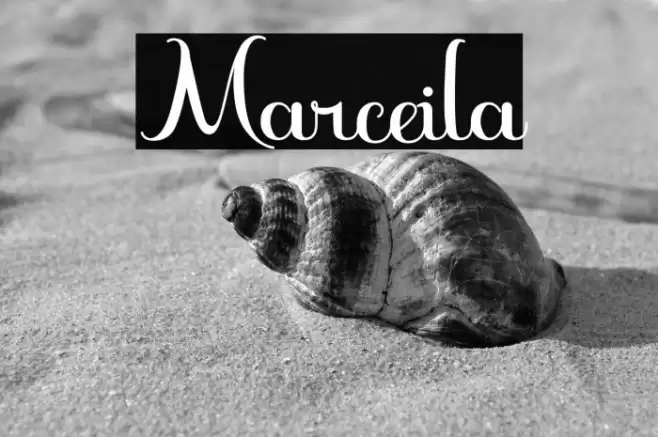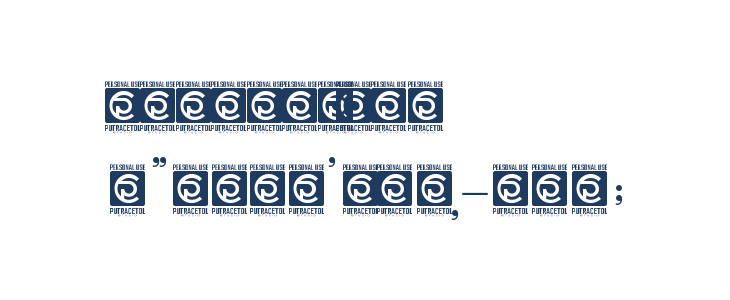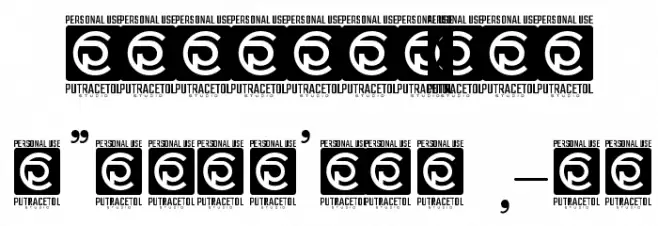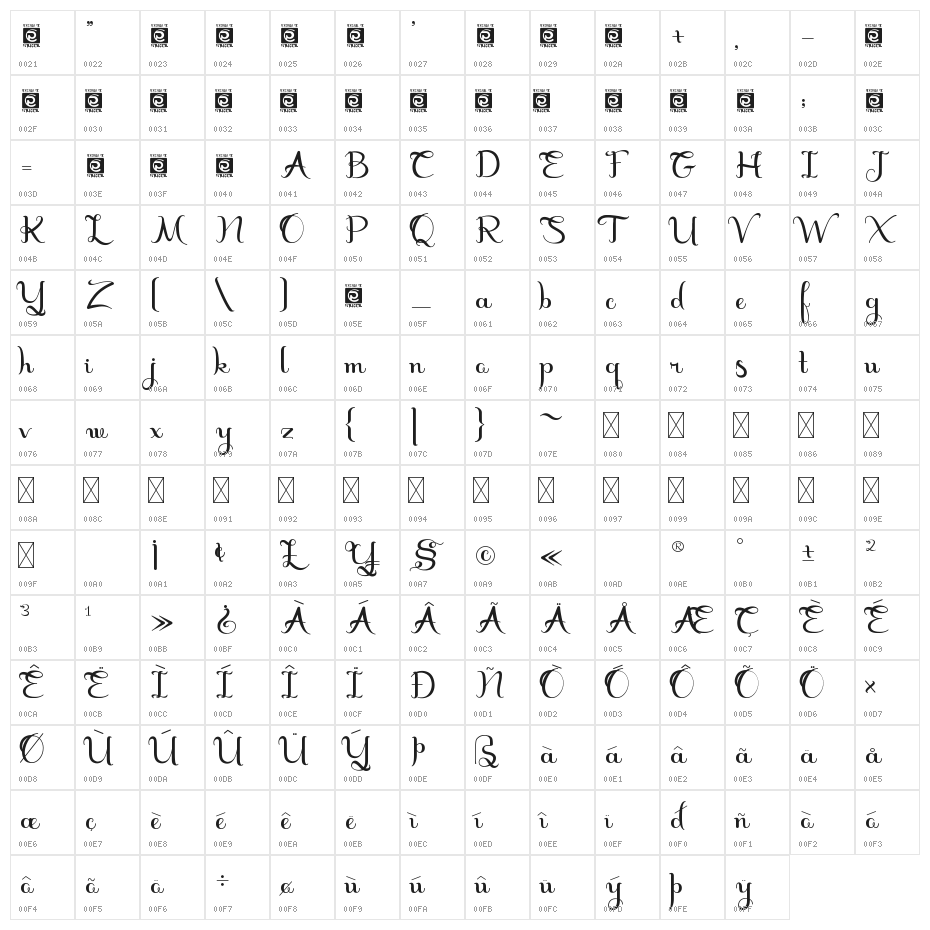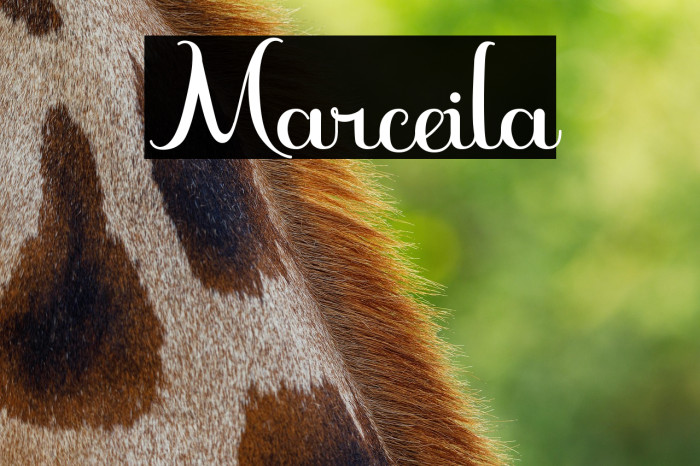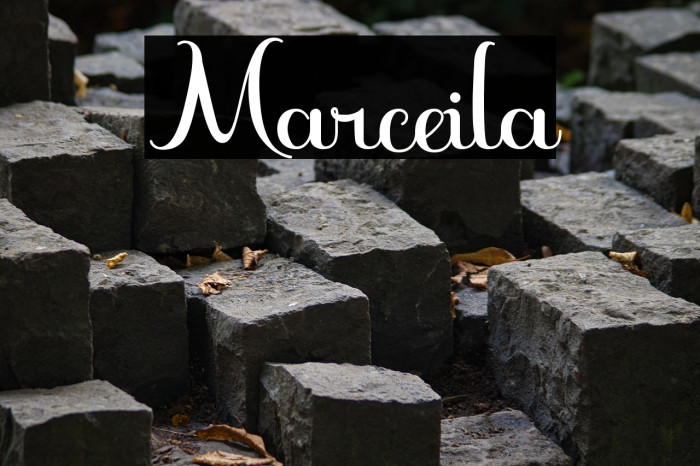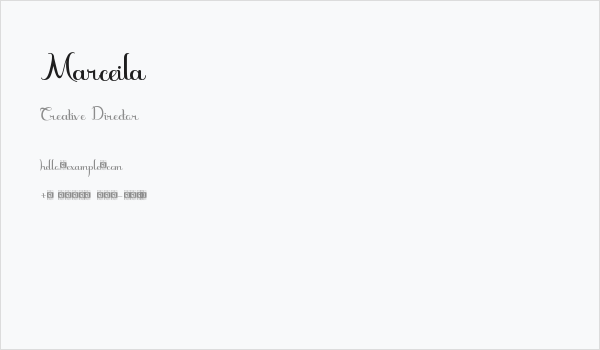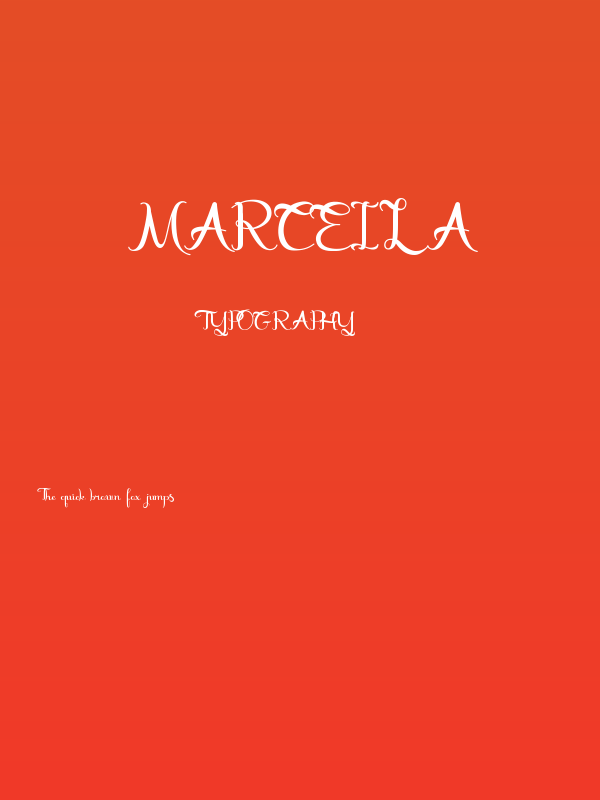
Marceila Font
Marceila Description
This font features an elegant and flowing script style, characterized by its graceful curves and loops. The uppercase letters exhibit a sophisticated flair with extended strokes, while the lowercase letters maintain a consistent fluidity, enhancing readability. The numerals are designed with a similar aesthetic, ensuring uniformity across all characters. This font's decorative nature is accentuated by its intricate details, making it suitable for creative and artistic projects. The special characters, including punctuation marks, are seamlessly integrated, maintaining the overall style. Its unique design is perfect for adding a touch of elegance and sophistication to any text.
An elegant and flowing script font with graceful curves and loops from Regular fonts.
- Proposed Projects: Ideal for wedding invitations, greeting cards, branding, and logo design.
- Use Case: Logos, Invitations, Decorative text